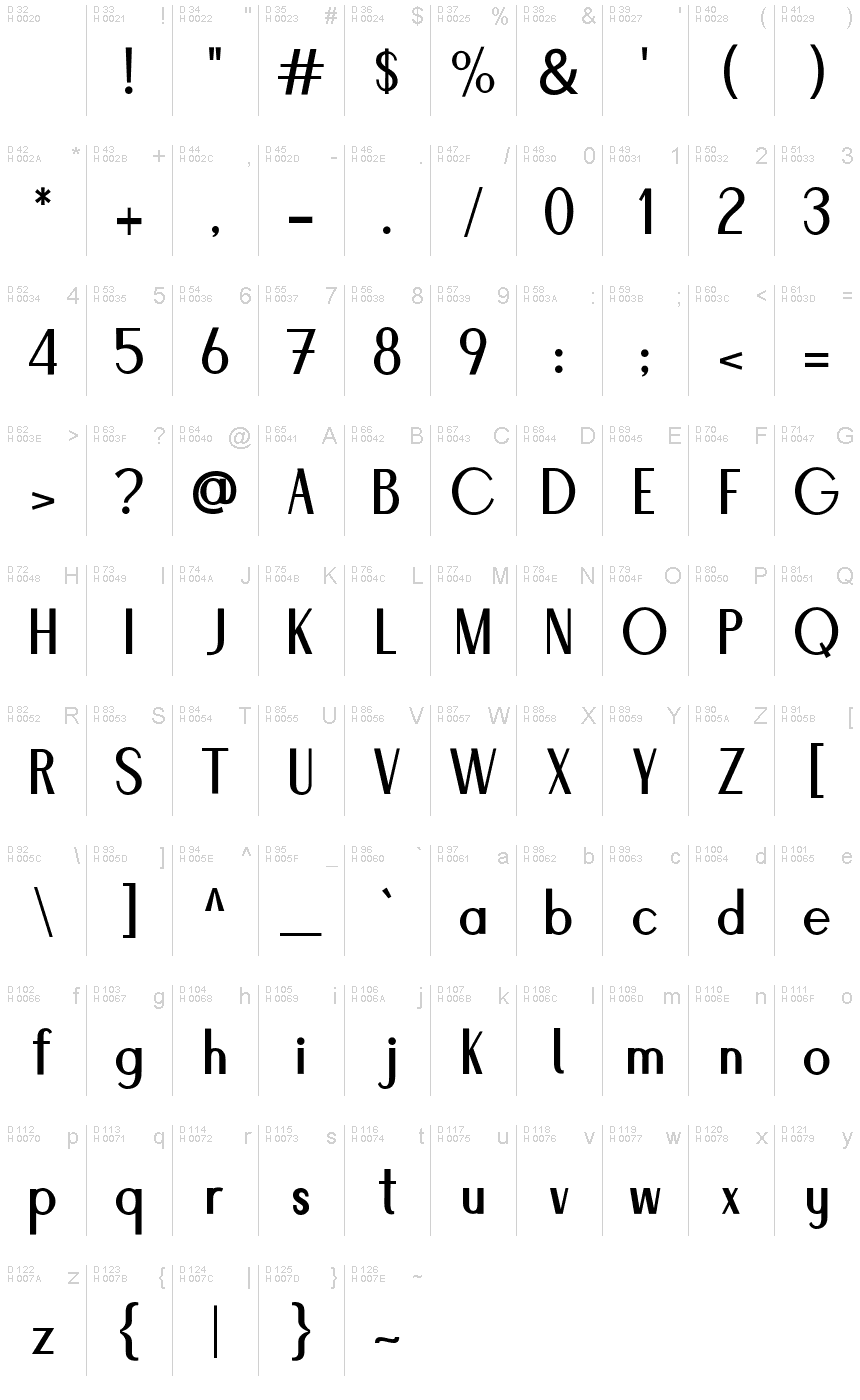
Flecto
Introducing Flecto, a light and versatile sans serif font designed by Maulana Creative. Perfect for modern projects such as logos, posters, websites and more! Create unique designs with its powerful yet simple aesthetic.